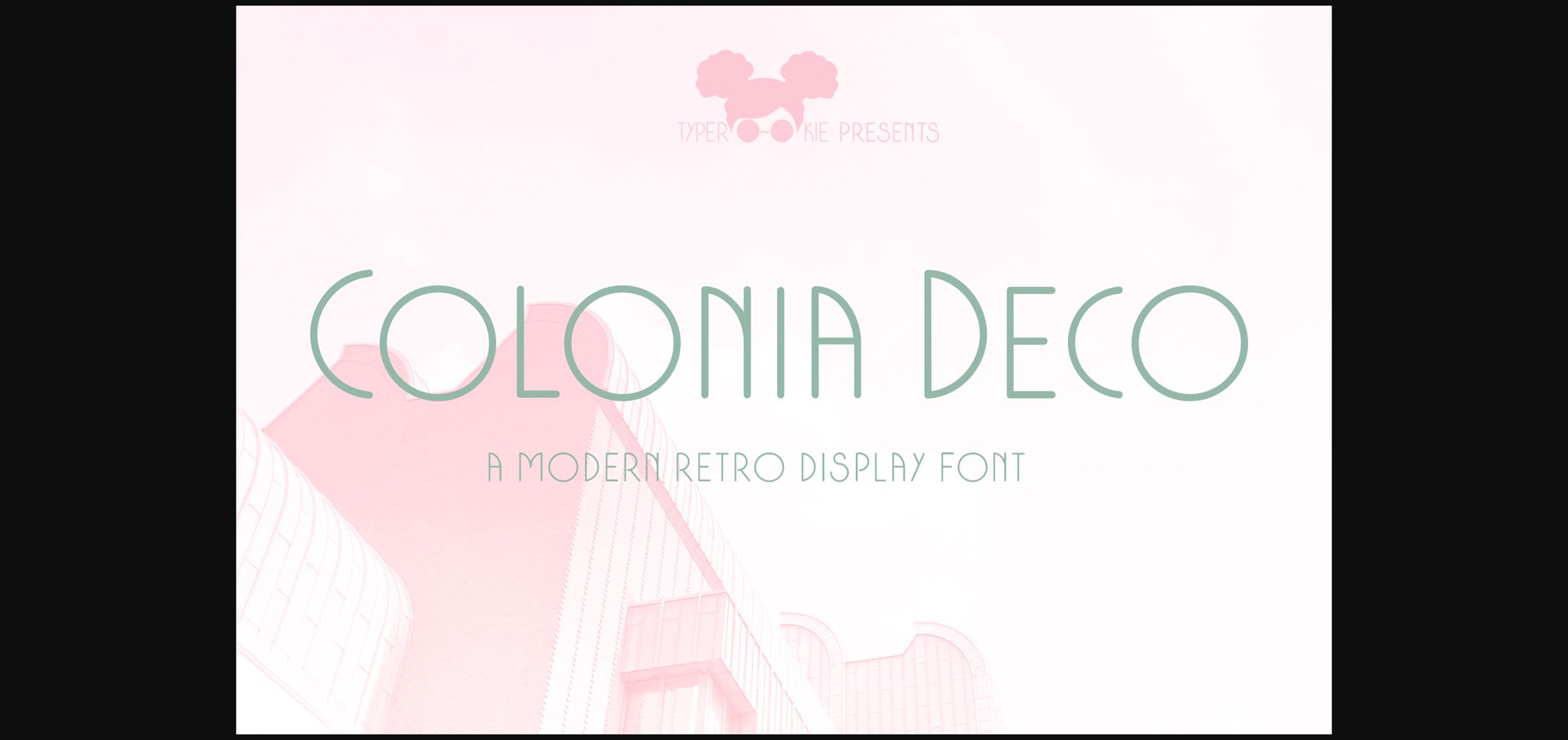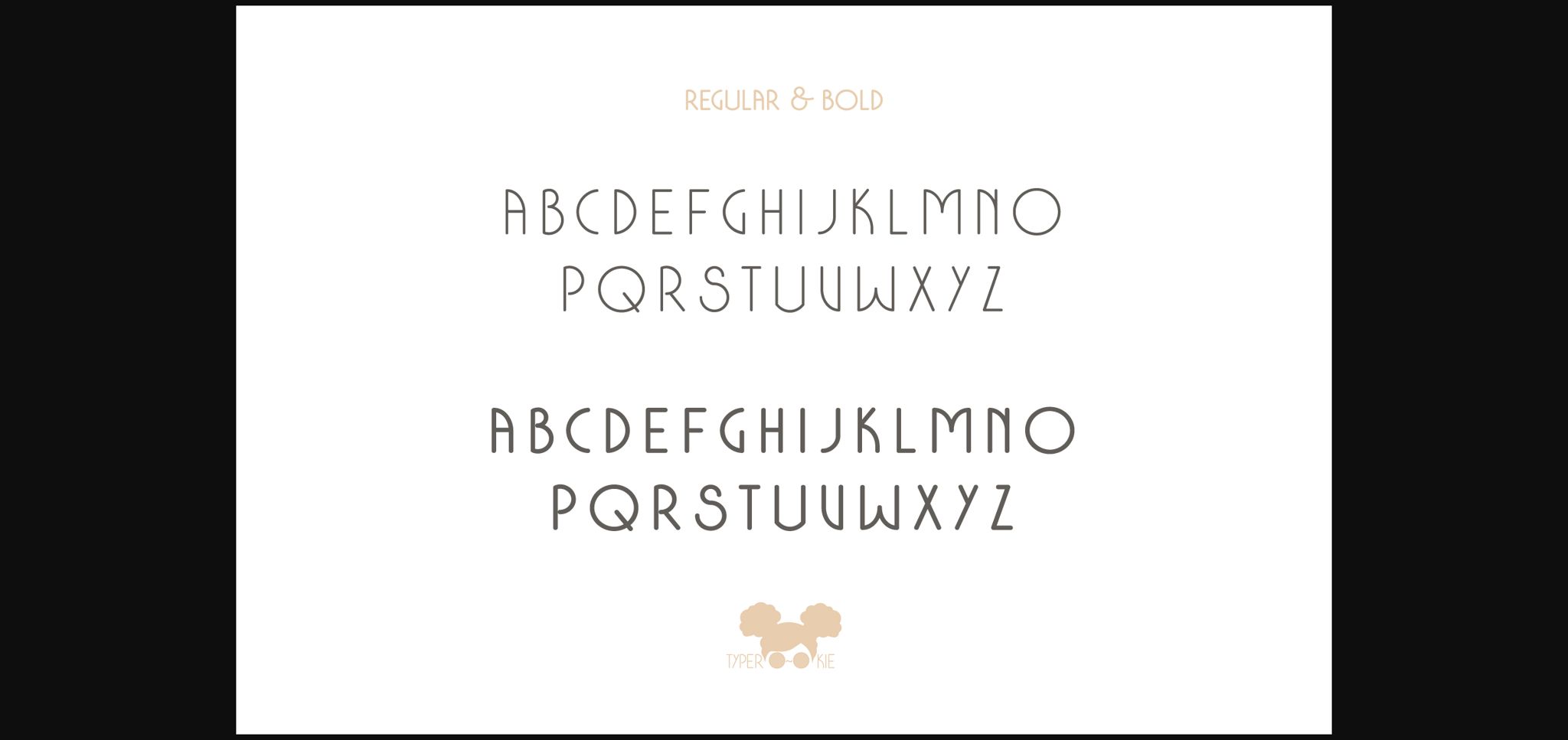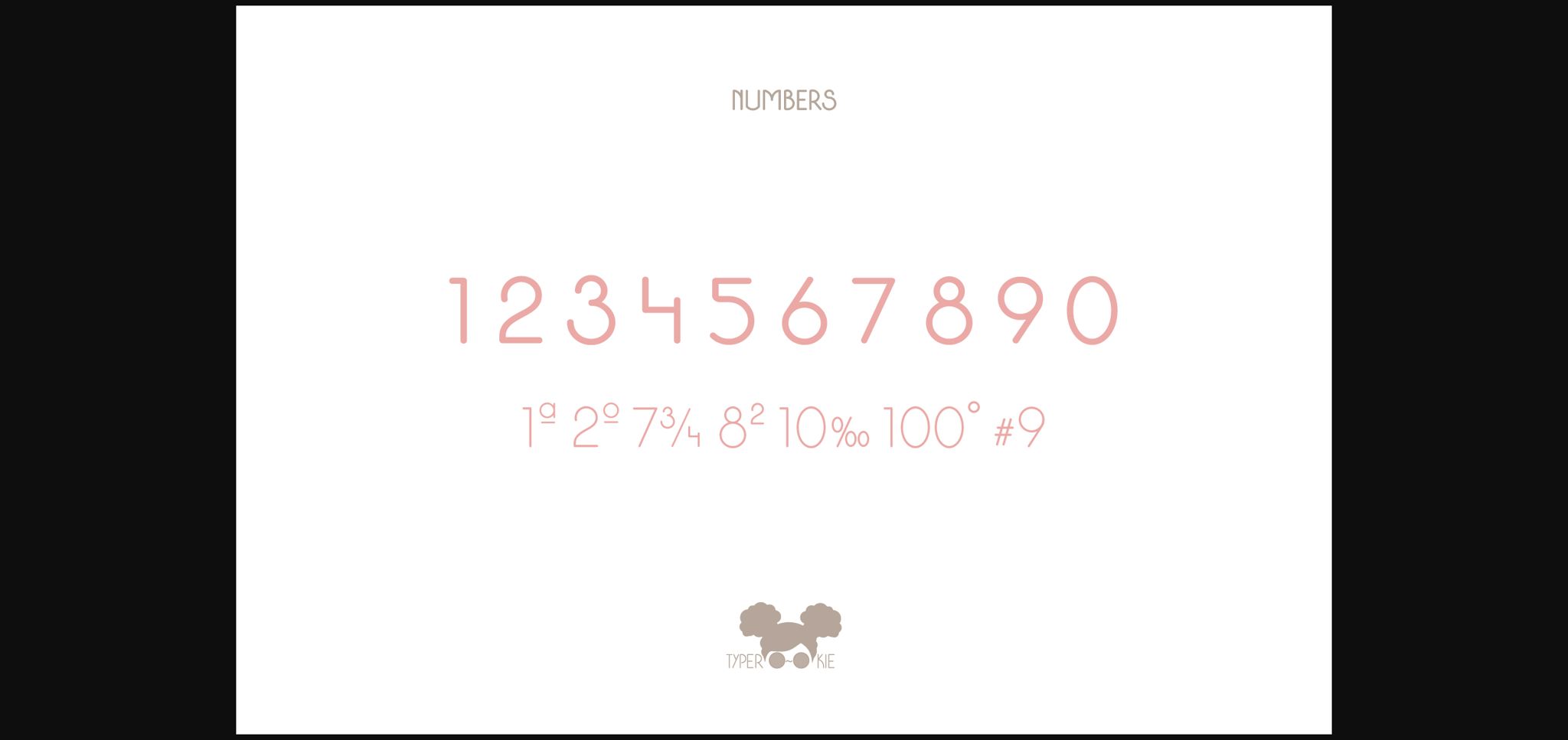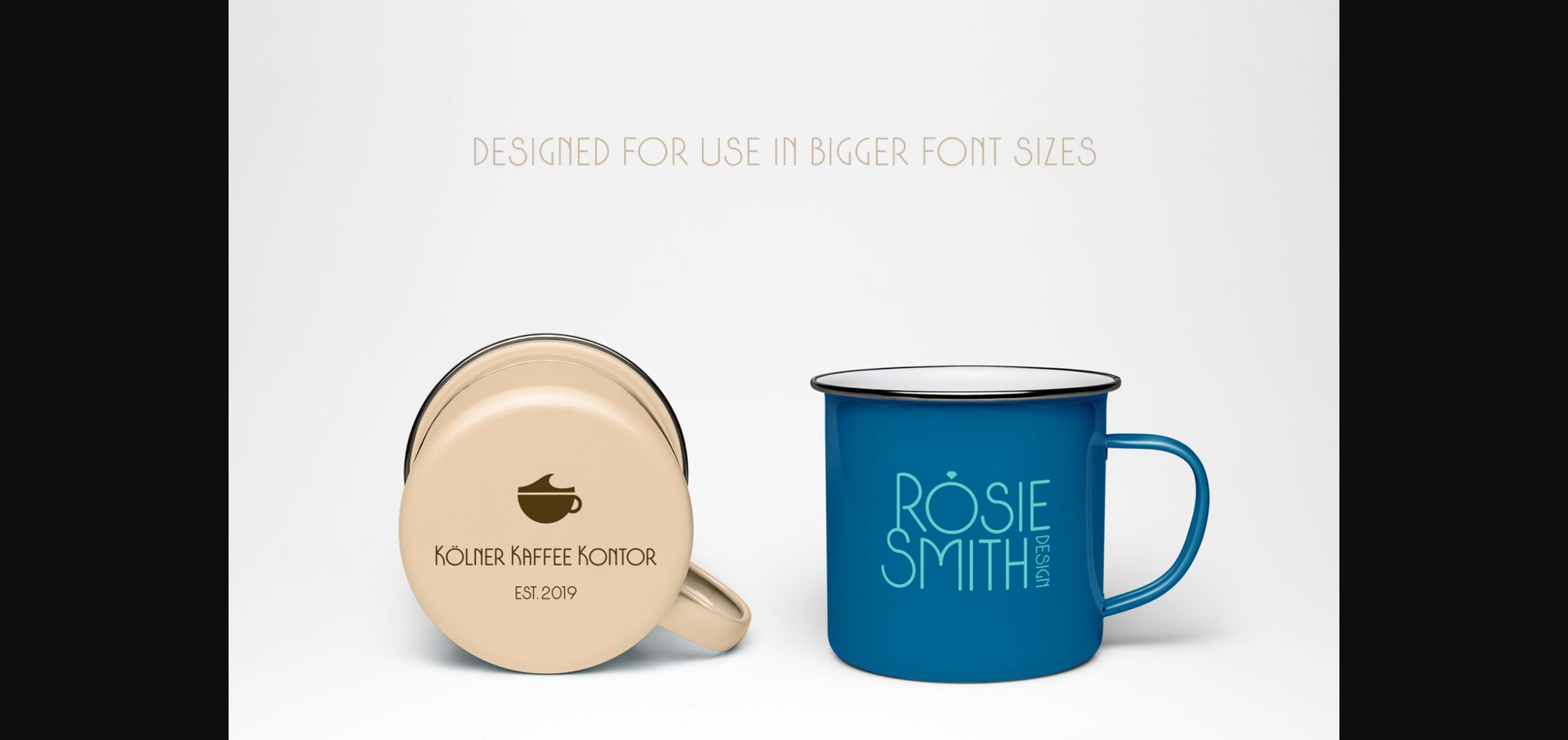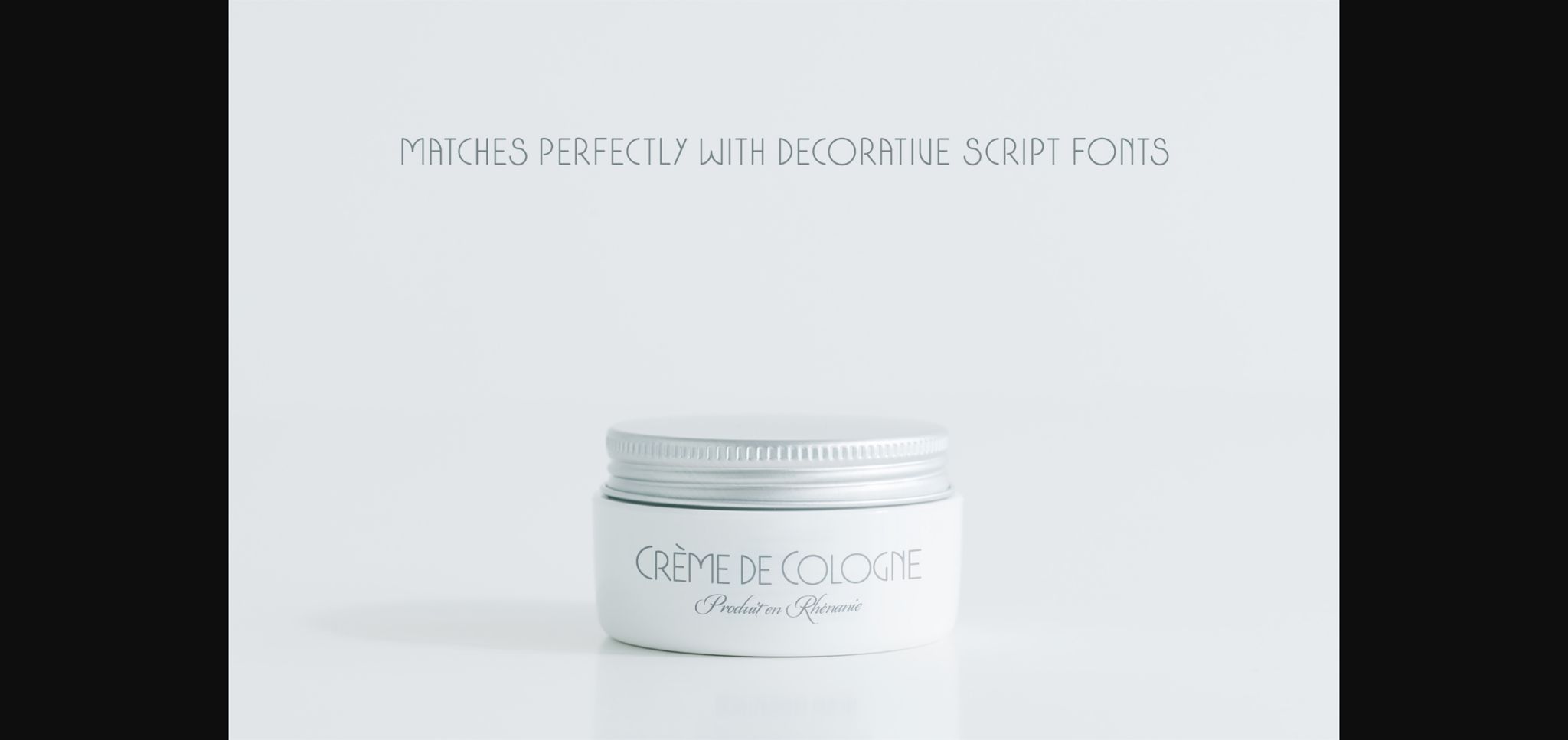
About Colonia Deco Font
Colonia Deco is an elegant Sans Serif typeface with a touch of vintage. It’s a perfect choice for designs with a luxurious look & feel!